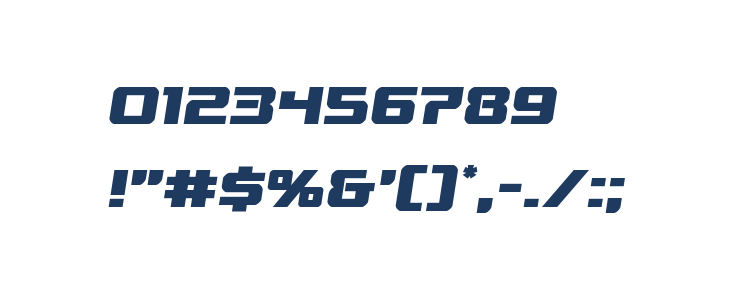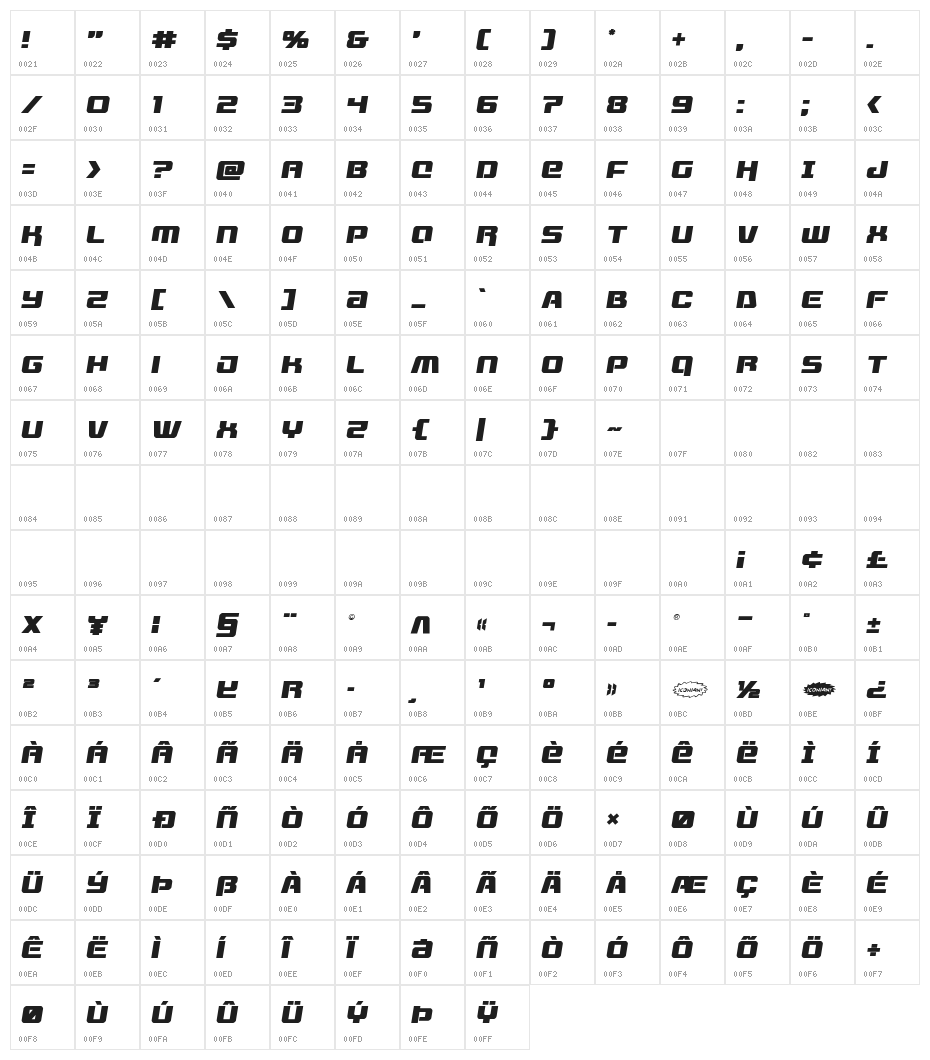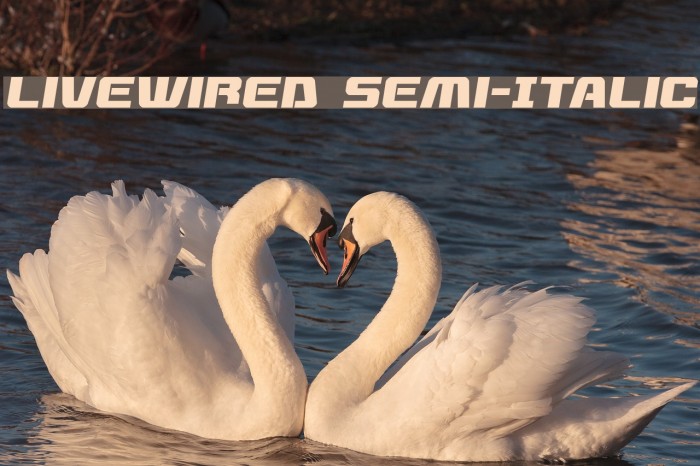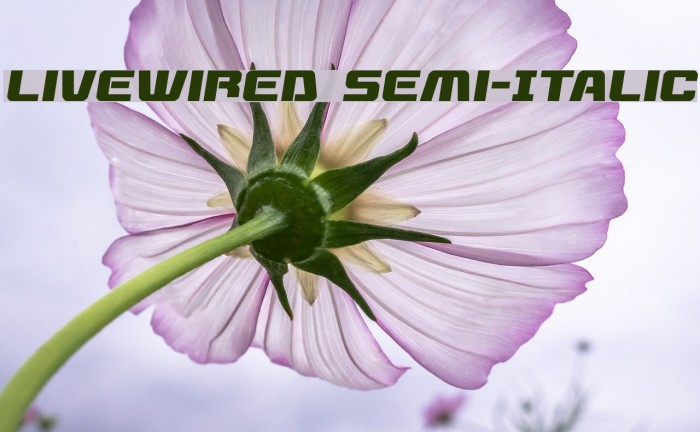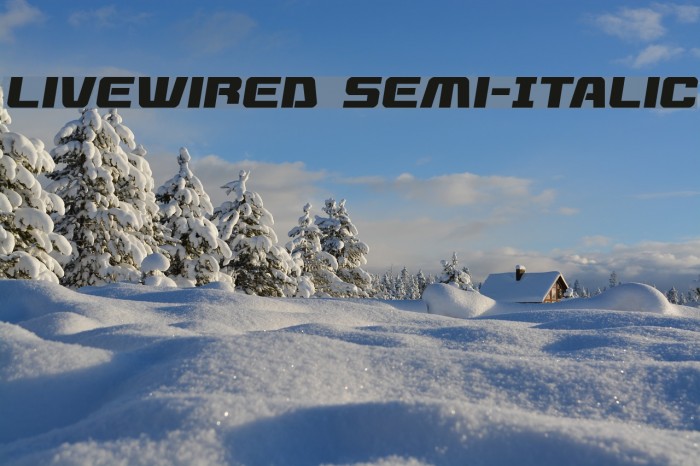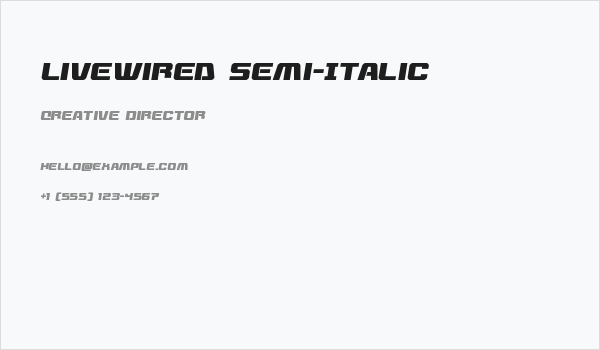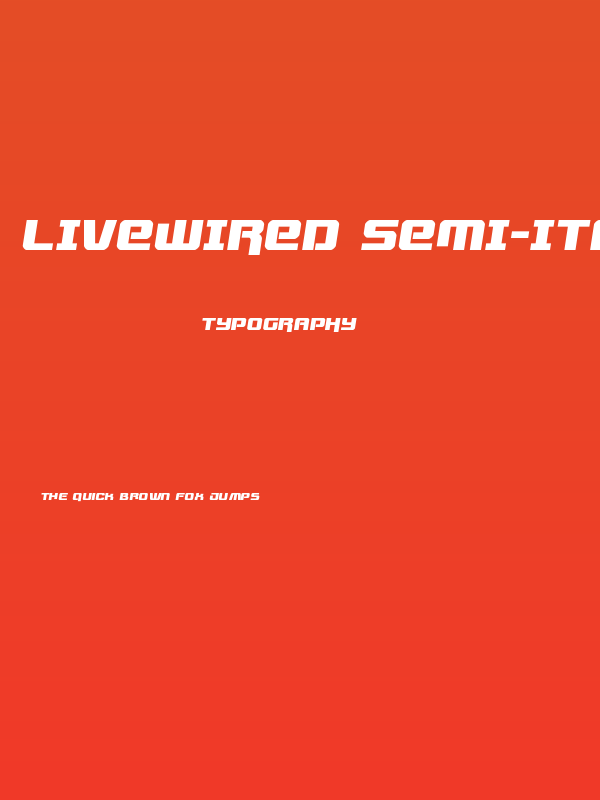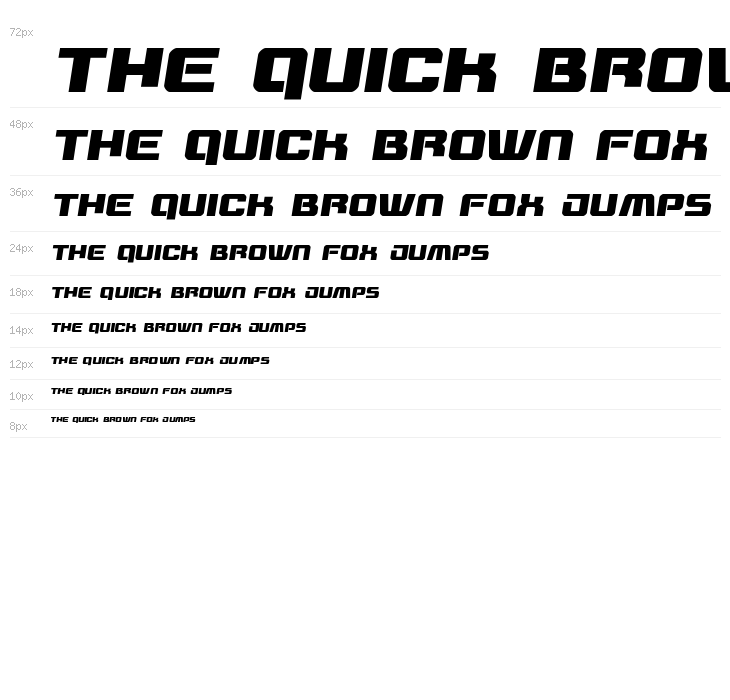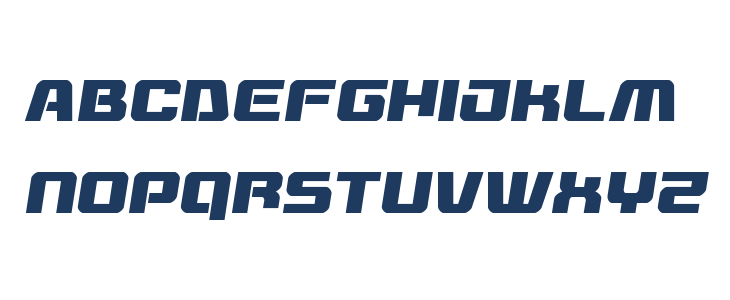
Livewired Semi-Italic Font
Livewired Semi-Italic Description
This font features a bold and dynamic design with a futuristic flair. The characters are slightly italicized, giving them a sense of motion and speed. The strokes are thick and consistent, providing a strong visual impact. The angular and geometric shapes of the letters contribute to a modern and edgy appearance. The font maintains a uniform width across all characters, ensuring a cohesive look. The spacing between characters is tight, enhancing the compact and streamlined feel. This style is ideal for projects that require a bold statement and a contemporary aesthetic.
| Use Case | Logos, Headlines |
| Proposed Projects | Ideal for technology branding, sports team logos, video game titles, and sci-fi movie posters. |